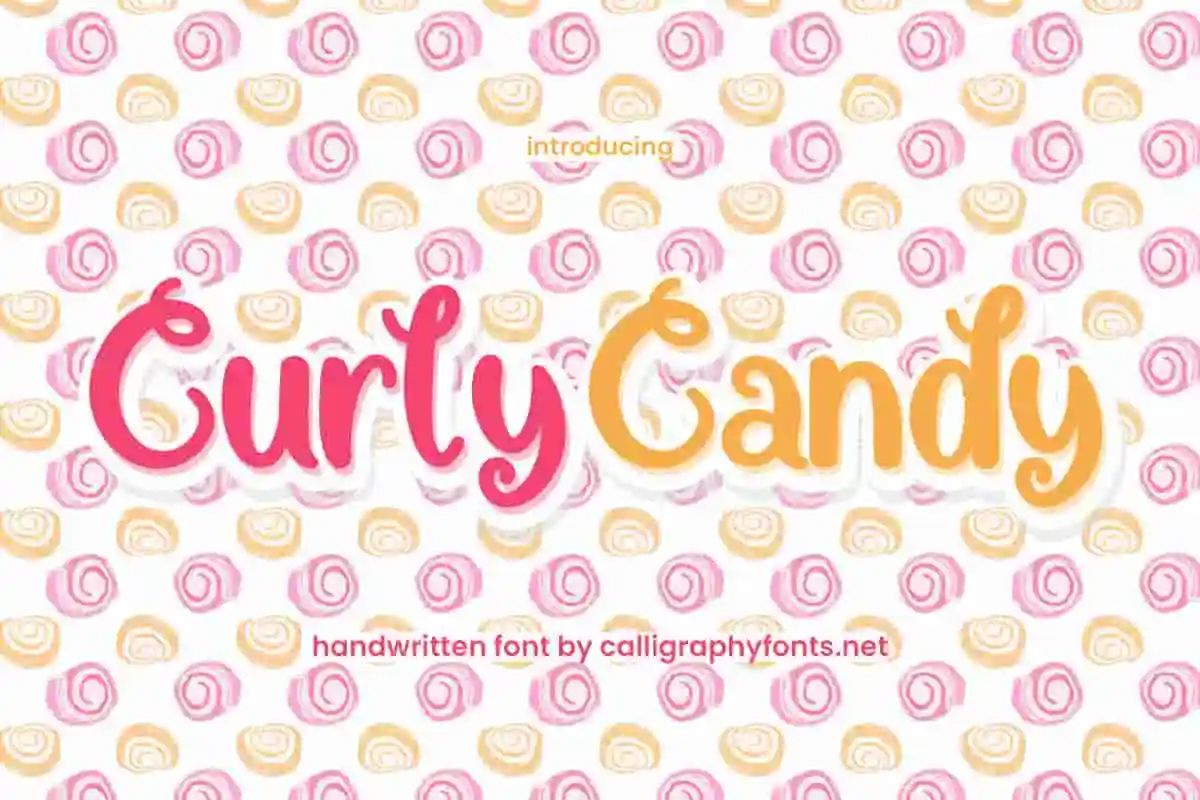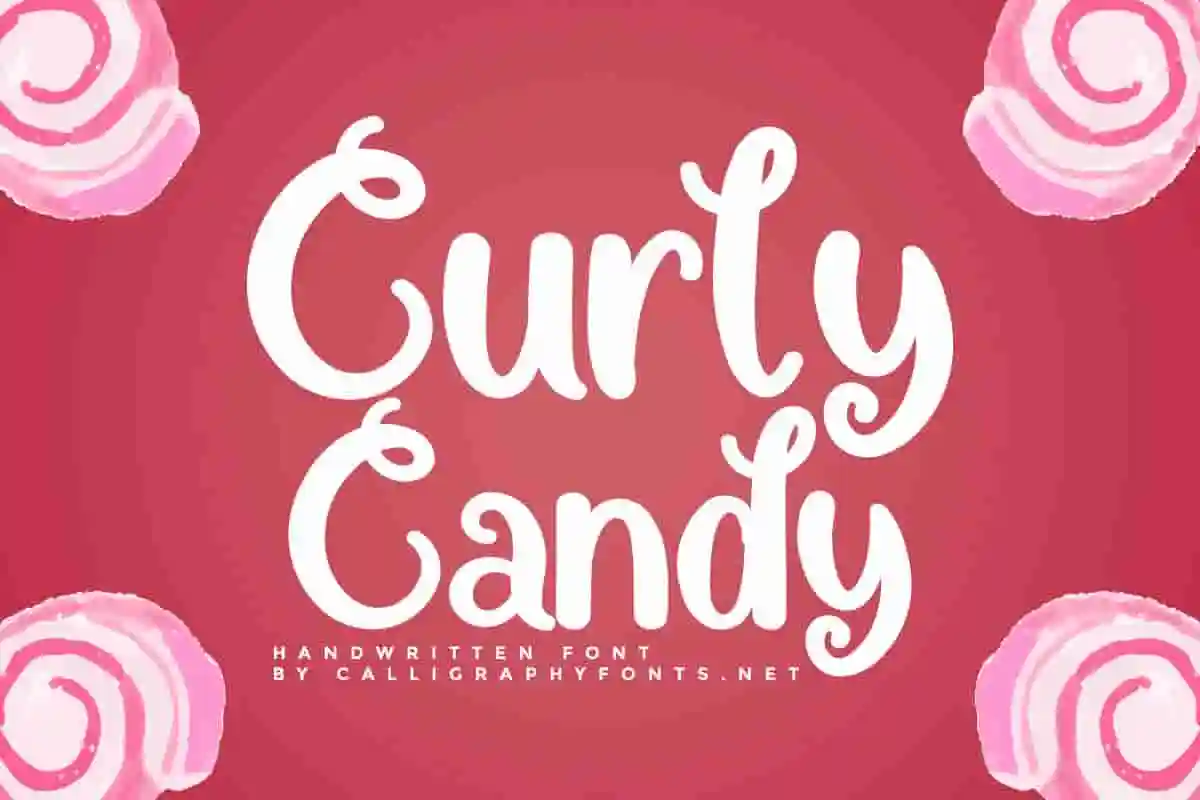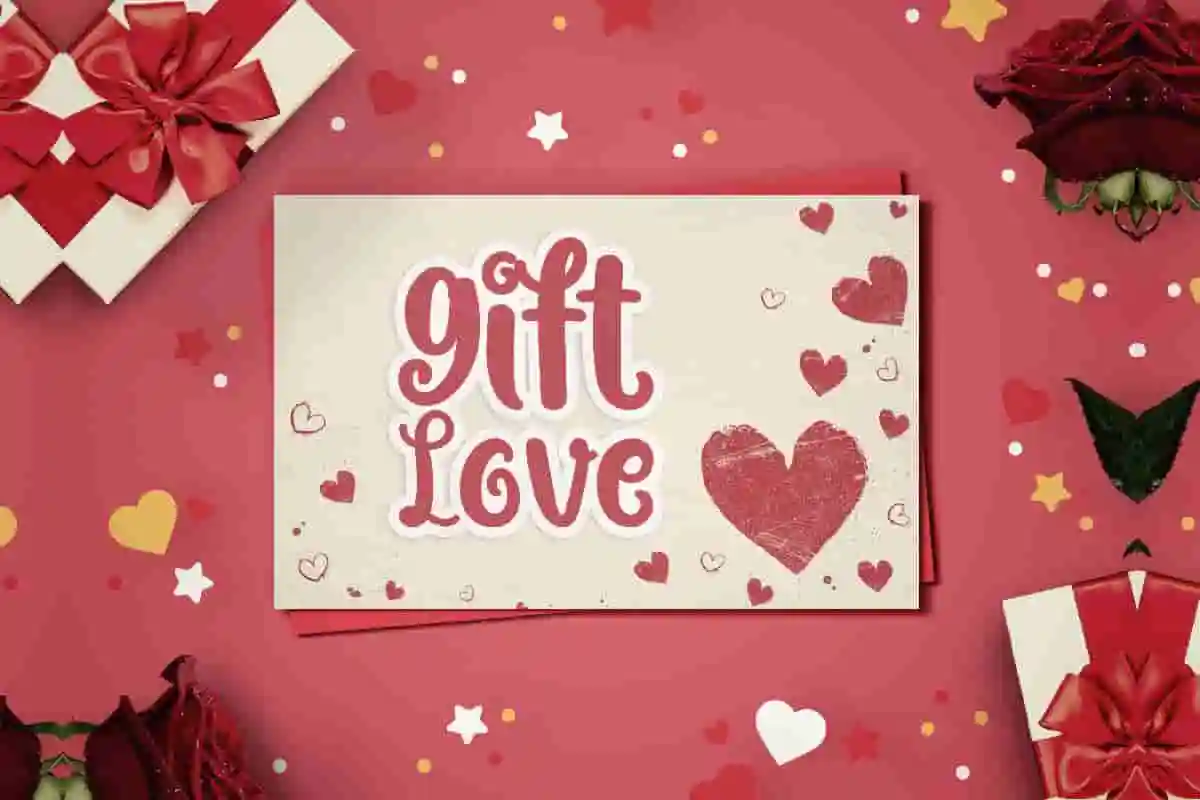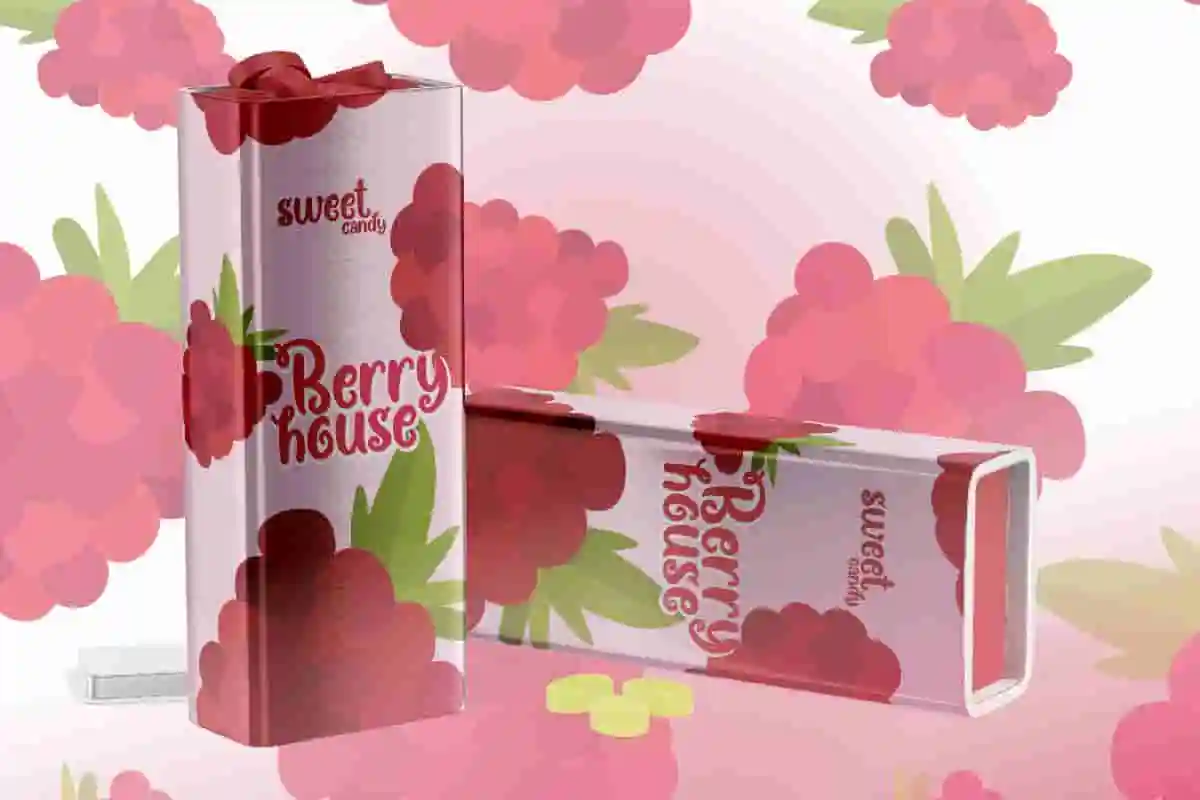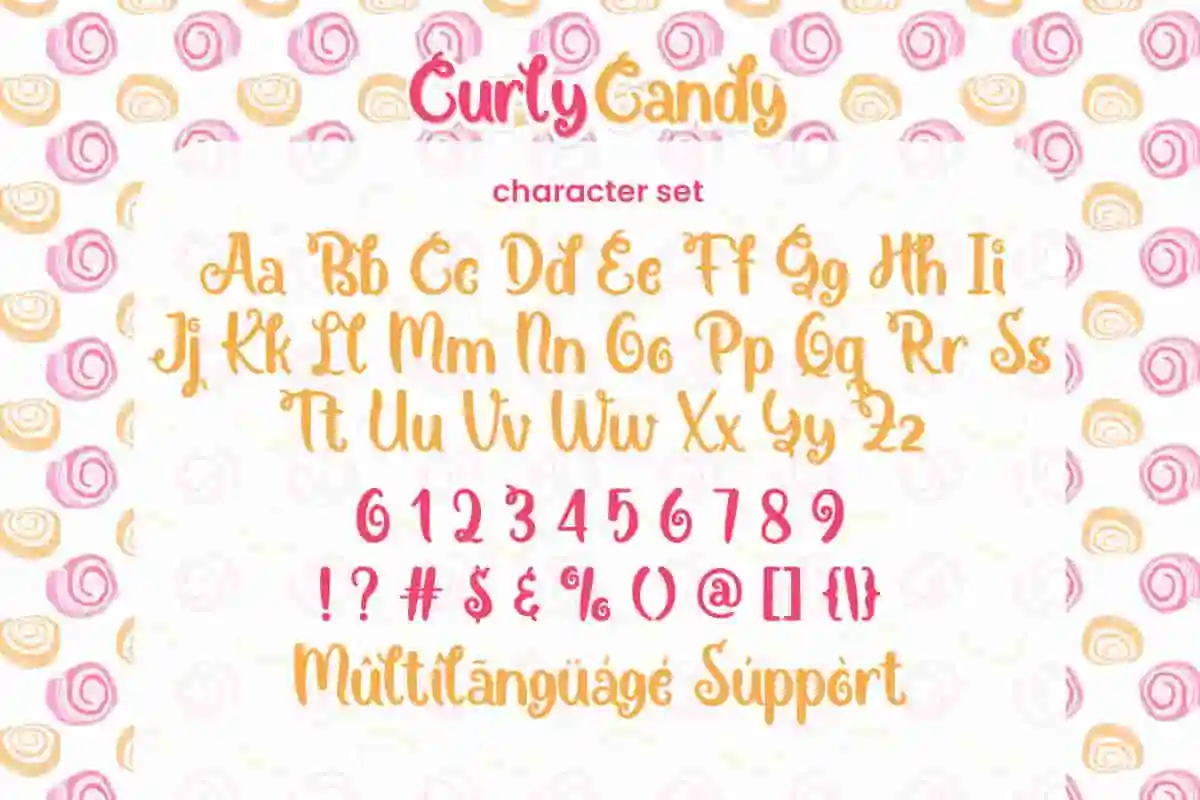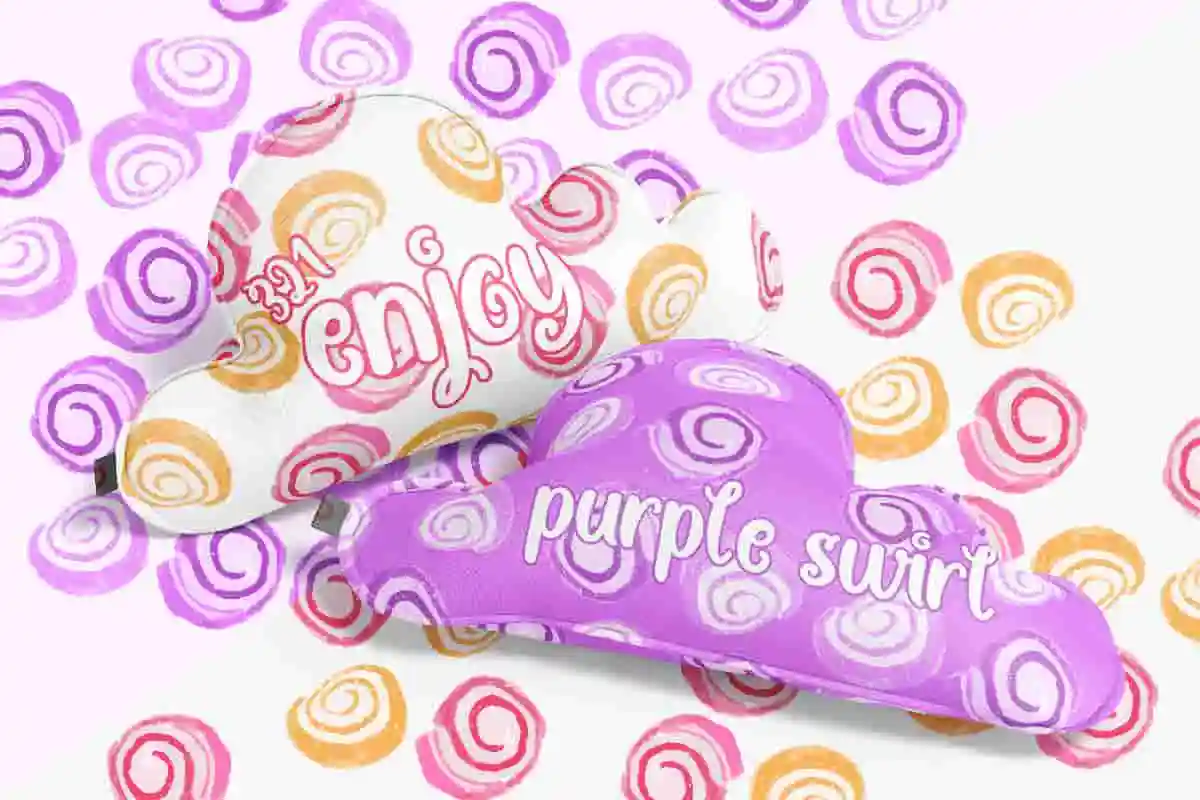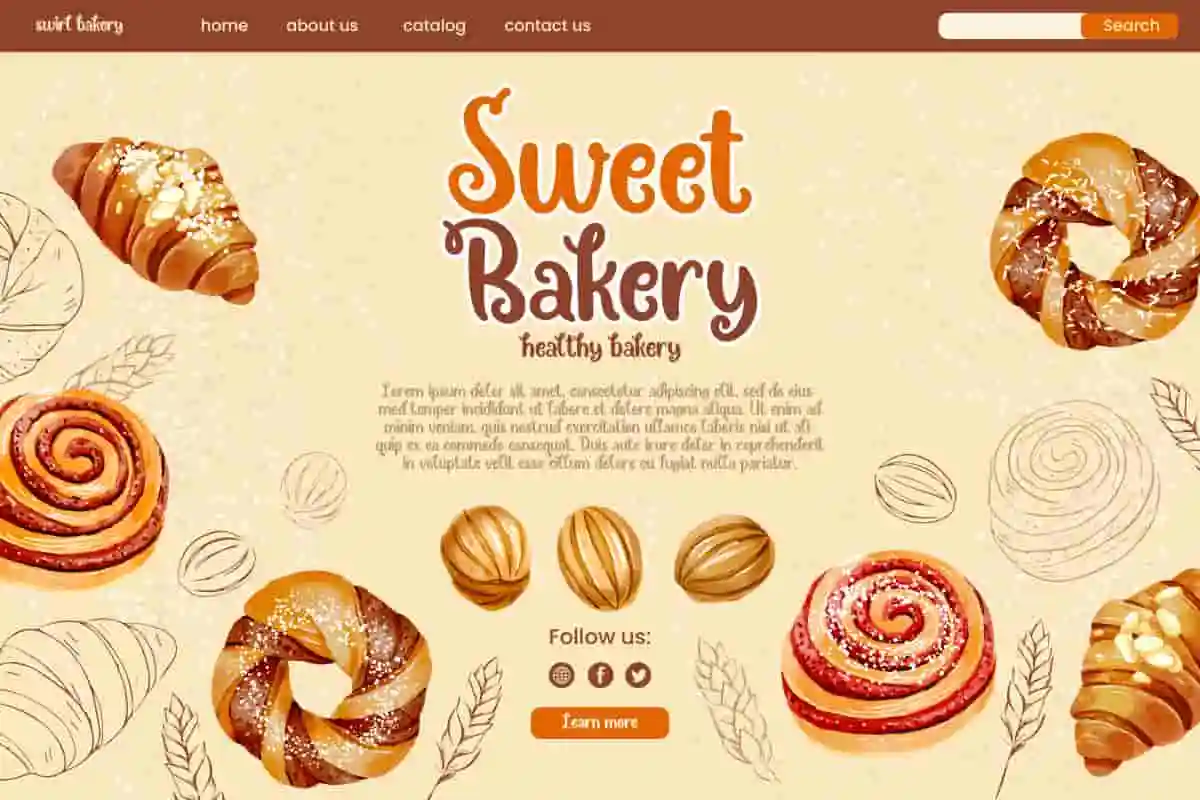
Curly Candy Handwriting Font
Curly Candy Font is a fun handwritten font with cute curly letters. The sweet script make it suitable for bakery, candy, gift for someone special, product packaging, restaurant, sticker, or simply use it in your background writing.
Curly Candy Font is a playful and cute handwritten script font, created by Calligraphy Fonts. This font has a unique curl at the end of each letter and makes it standout for your creative projects such as blog header, creating logo, custom design, greeting card, ice cream label, menu book, product packaging, quotes, title, ang more!
Curly Candy is a joyful handwriting font packed with personality and charm. Its curly strokes and bubbly style bring the playful essence of handwriting into your creative work, making every word feel fun, lighthearted, and full of energy. Perfect for kids’ party invitations, candy packaging, stickers, or classroom materials, this handwriting font is designed to make people smile.
Curly Candy is a whimsical handwriting font that adds a dose of fun to your designs. With curly swirls and playful curves, this handwriting style brings a joyful, hand-drawn feel that’s perfect for creative projects with a lighthearted tone. Whether you’re creating birthday invitations, kids’ party posters, or colorful packaging, this handwriting font instantly gives your text a bubbly and approachable personality.
Say hello to Curly Candy, a fun and bouncy font full of personality. With its rounded shapes and curly accents, this font brings a cheerful vibe that’s perfect for bright, friendly, and feel-good designs. Great for kids’ party invites, snack packaging, planners, stickers, or DIY projects, Curly Candy is the kind of font that instantly puts a smile on your face. Its playful curves and natural flow give your text a hand-drawn feel that’s casual, charming, and full of life.
• Classroom posters
• Cute product packaging like snacks or stationery
• Kids’ birthday invitations and party decor
Curly Candy Font will be great for any industry including: bakery, cooking, craft, restaurant, and anything that has to do with something sweet, like candy making, gifts for that special someone, which requires a touch of stunning handwriting. Carefully crafted to create a cheerful look that adds aesthetics to every design created and easy to read.